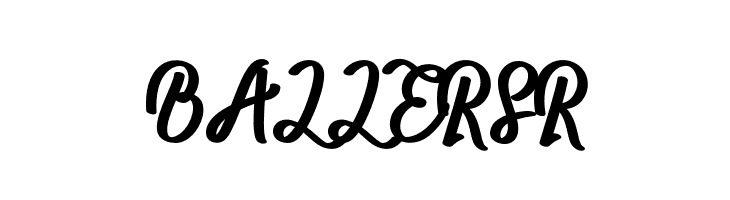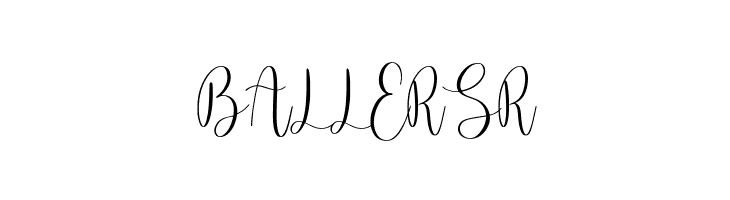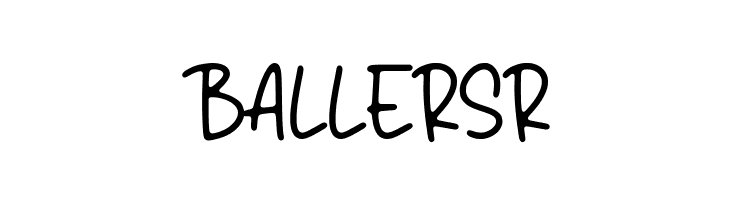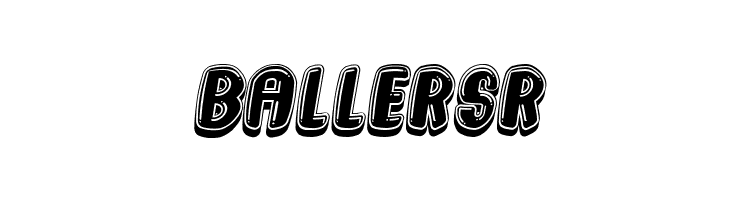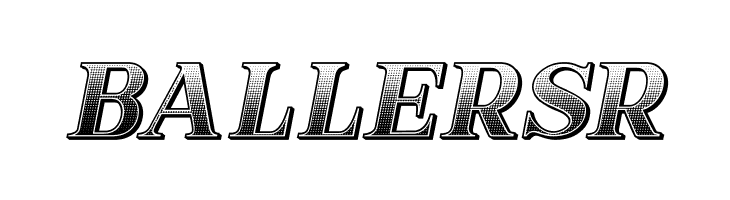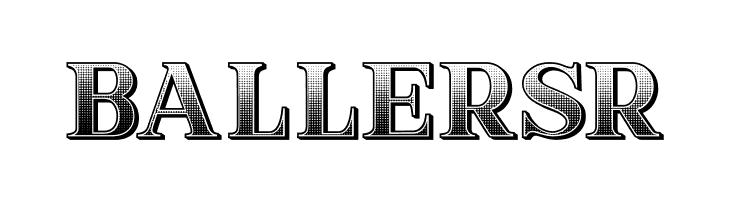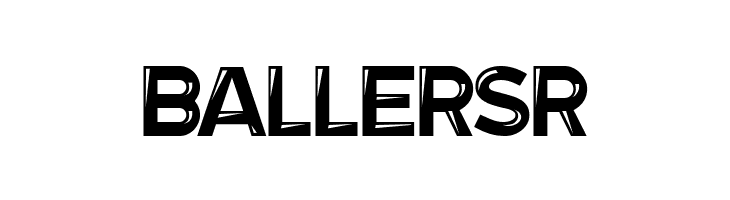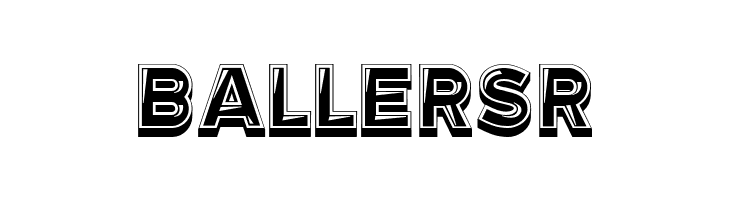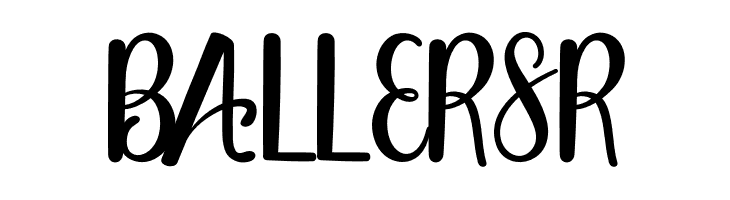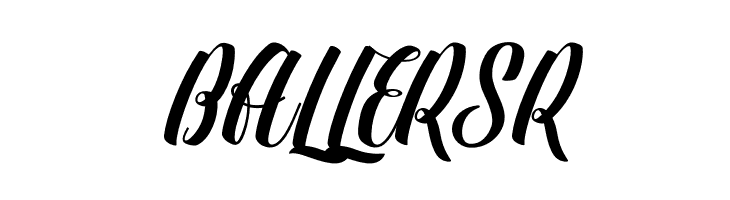
A dynamic, angular font with a forward-leaning, fluid design.
An elegant and flowing script font with high contrast and graceful letterforms.
A modern, cursive font with interconnected letters and a flowing style.
A flowing, cursive script font with elegant loops and a handwritten style.
A dynamic and elegant script font with a modern, handwritten style.
A flowing, cursive font with elegant curves and a handwritten aesthetic.
A playful and dynamic script font with a handwritten feel.
A playful, bold font with a bubbly, retro style.
A playful, bold font with rounded, comic-style letterforms and a three-dimensional effect.
A bold, decorative font with gothic and bubble-like elements, featuring high contrast and intricate detailing.
A bold, dynamic font with a playful, three-dimensional bubble-like style.
A bold, three-dimensional font with a playful and dynamic appearance.
A playful, bold font with a bubble-like, glossy appearance.
A playful, casual handwritten font with smooth, rounded edges.
A flowing cursive font with elegant curves and loops.
Decorative swashes and flourishes with intricate, elegant lines.
A whimsical, cartoon-like font with unique character designs for each letter.
A playful, bold font with rounded edges and a slightly condensed form.
A playful, bold font with organic shapes and quirky details.
A display font styled as architectural buildings with a modern, urban feel.
A font where each character is designed as a building, featuring architectural elements.
A lively and energetic script font with fluid, connected letterforms.
An elegant, flowing script font with a sophisticated, handwritten style.
A modern, decorative font with bold geometric uppercase and elegant script lowercase.
A decorative monogram font with bold, enclosed characters.
A bold, monogram-style font with letters encased in ovals, ideal for elegant and personalized designs.
A bold, monogram-style font with letters enclosed in ovals, offering a modern and decorative look.
A decorative monogram font with bold, oval-encased uppercase letters.
A bold, italic font with decorative, textured detailing and a vintage flair.
A bold, shadowed font with a vintage, decorative style.
A bold, abstract font with tribal-inspired curves and angles.